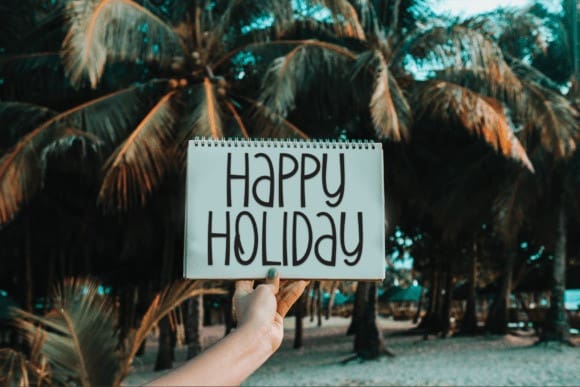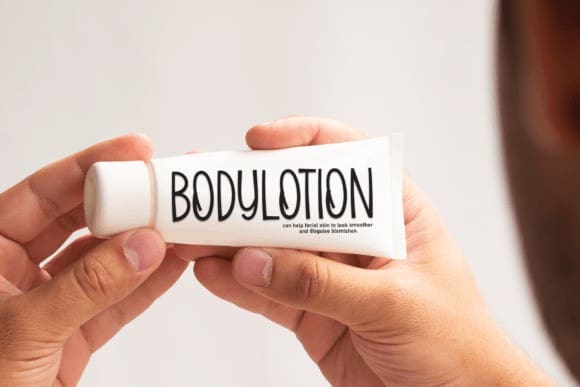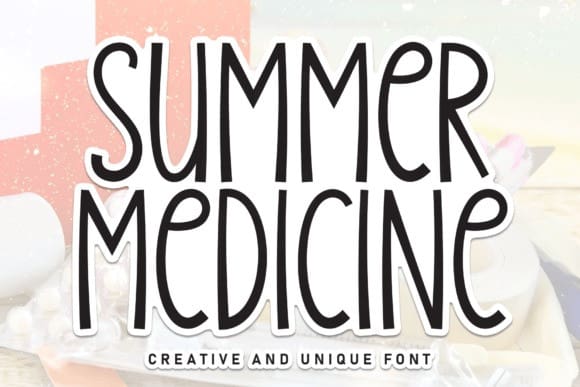
Summer Medicine Font
Summer Medicine is a lovely and timeless handwritten font. It is the best choice for creating eye catching logos, branding and quotes. Every letter has a unique and beautiful touch, which will make your design come alive!